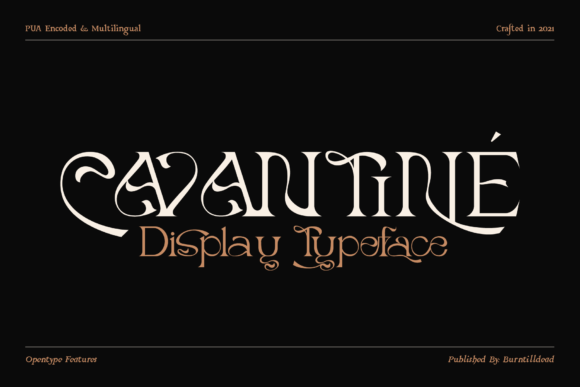
**Introducing Cavantine: The Epitome of Elegance and Modernity**
Prepare to be mesmerized by Cavantine, a captivating serif font that exudes both sophistication and charm. Its graceful curves and timeless style will elevate your designs to new heights, making your creations stand out from the crowd.
With Cavantine, versatility reigns supreme. Its adaptable nature makes it the perfect choice for a wide range of projects, from chic invitations to polished presentations. Whether you're a seasoned designer or just starting out, Cavantine will empower you to showcase your creativity with ease.
Unleash the full potential of Cavantine's beauty with its PUA encoding, which grants you effortless access to a treasure trove of glyphs and swashes. Adorn your designs with intricate details that will captivate the eye and leave a lasting impression.
Immerse yourself in the world of Cavantine and let its elegant presence transform your creative endeavors. From captivating logos and alluring branding to stunning social media posts, Cavantine will ignite your imagination and bring your visions to life.
**Why Choose Cavantine?**
- Experience unmatched sophistication and elegance in every design.
- Enjoy unparalleled versatility that adapts seamlessly to any project.
- Access a vast collection of glyphs and swashes with effortless PUA encoding.
- Embark on a creative journey where imagination knows no bounds.
Elevate your design game with Cavantine, the font that will ignite your passion and empower you to create masterpieces that will leave an enduring legacy.